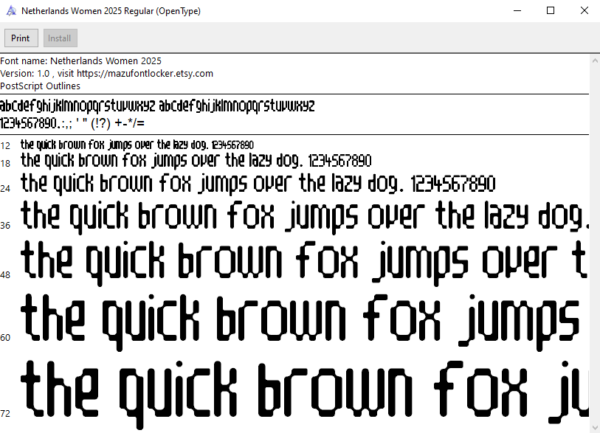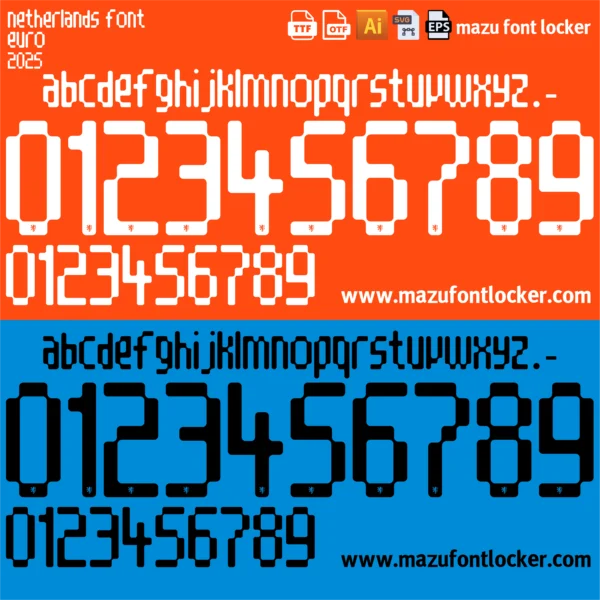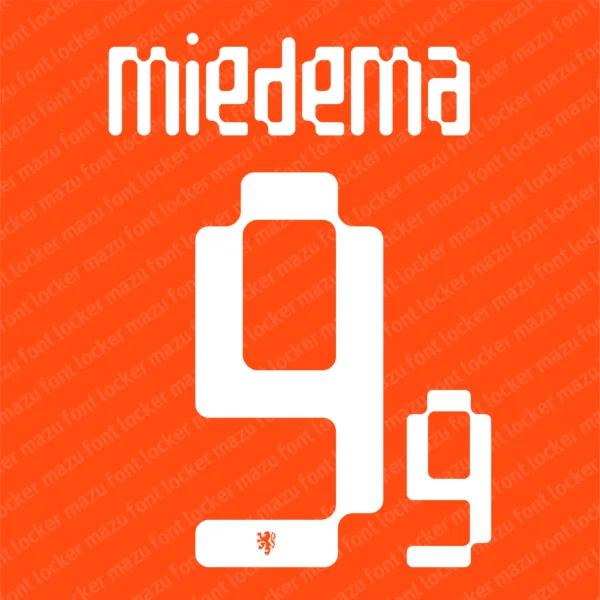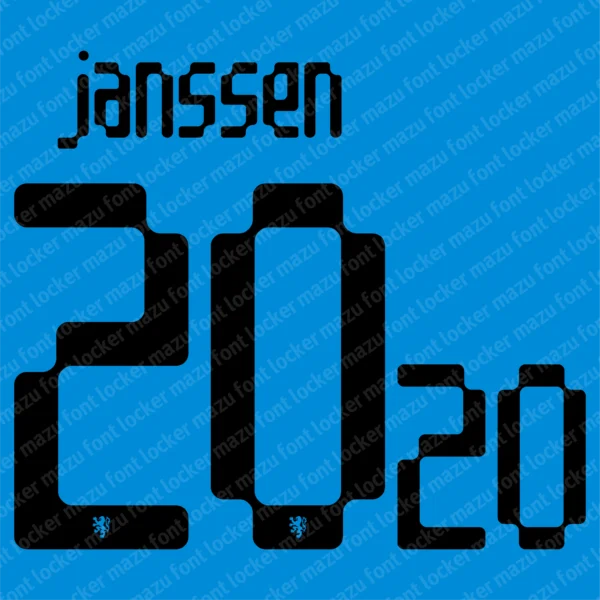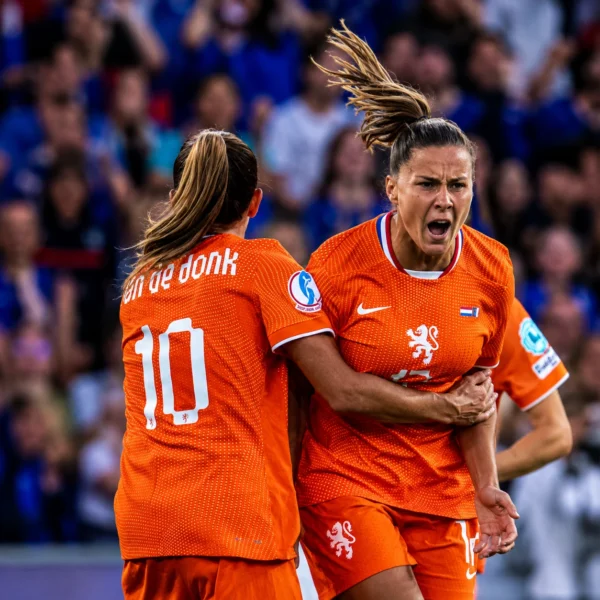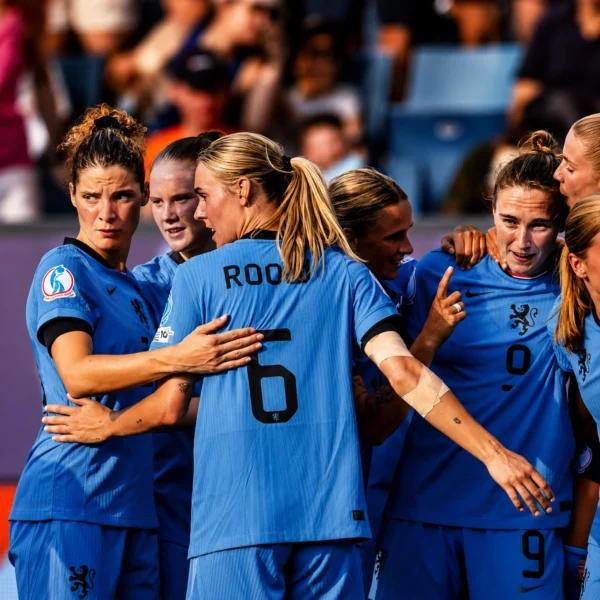
Netherlands Womens Euro 2025 Font Vector – Epic Oranje Lionesses Masterpiece
Download the Netherlands Womens Euro 2025 Font Vector (AI, EPS, SVG, PDF, OTF, TTF) and unleash the bold, vibrant, and fiery match typography from the Netherlands Women’s Euro 2025 campaign. This font captures the iconic Orange lettering that powers the Oranje Leeuwinnen’s charge.
Channeling the proud Dutch spirit and fearless attacking style, it features the strong, modern design worn by stars like Daniëlle de Jong, Lieke Martens, Vivianne Miedema, and Jackie Groenen. Perfect for premium jersey mockups, football designs, and passionate Netherlands Women’s art.
Netherlands Womens Euro 2025 Font Vector – Oranje Leeuwinnen Typeface
The Netherlands Womens Euro 2025 Font Vector is a premium typeface that faithfully recreates the distinctive lettering from the Netherlands Women’s National Team’s official Euro 2025 kit. This vector font kit captures the bold, modern, and vibrant typography of the Oranje Leeuwinnen.
Why Choose Netherlands Womens Euro 2025 Font Vector
This font set is prized for its precision and attention to detail. Every glyph has been meticulously recreated to match the official typography used on the Netherlands Women’s Euro 2025 home and away kits.
The letterforms are bold, modern, and slightly condensed with clean, sharp edges — delivering the iconic Dutch orange aesthetic with excellent readability for both large back numbers and intricate design work.
The numerals feature athletic proportions, strong contours, and balanced weight, making them perfect for replicating player names and squad numbers on the Euro 2025 tournament kits.
• Full uppercase A–Z and numbers 0–9 in the official Euro 2025 style
• Special KNVB crest glyph for authentic number detailing
• Multilingual Latin support with diacritics
• Includes precise crest placement used under player numbers on the official kit
Netherlands Womens Euro 2025 Campaign
The Netherlands Women’s National Team heads into Euro 2025 as one of the strongest contenders in Europe. Following their historic victory at the UEFA Women’s Euro 2017 on home soil and a strong showing in subsequent tournaments, the Oranje Leeuwinnen continue to impress with their attacking style and tactical discipline. The 2025 tournament represents another major opportunity for the team to shine on the international stage.
Led by a mix of experienced stars and emerging talents, the squad aims to bring the trophy back to the Netherlands. The vibrant orange kit remains a symbol of Dutch pride, passion, and the growing success of women’s football in the country. This font kit pays tribute to the Lionesses and their continued rise among the world’s elite women’s teams.